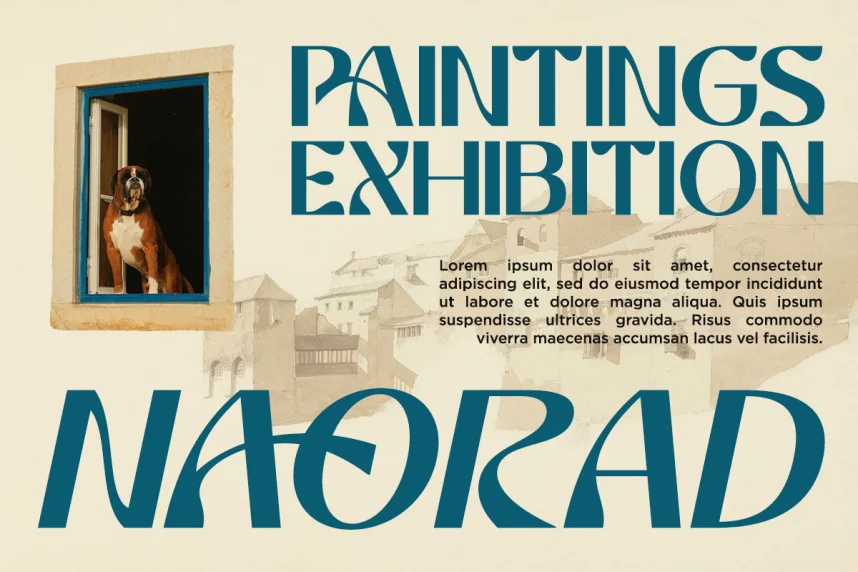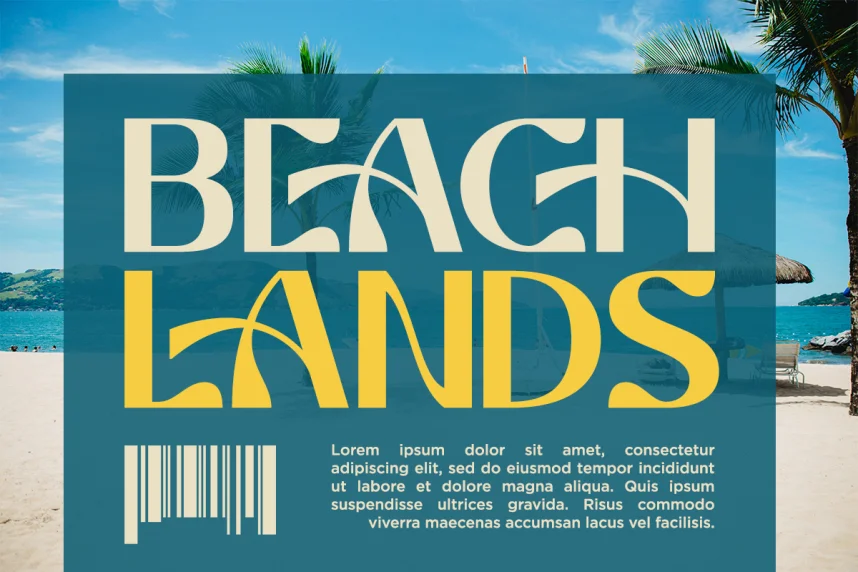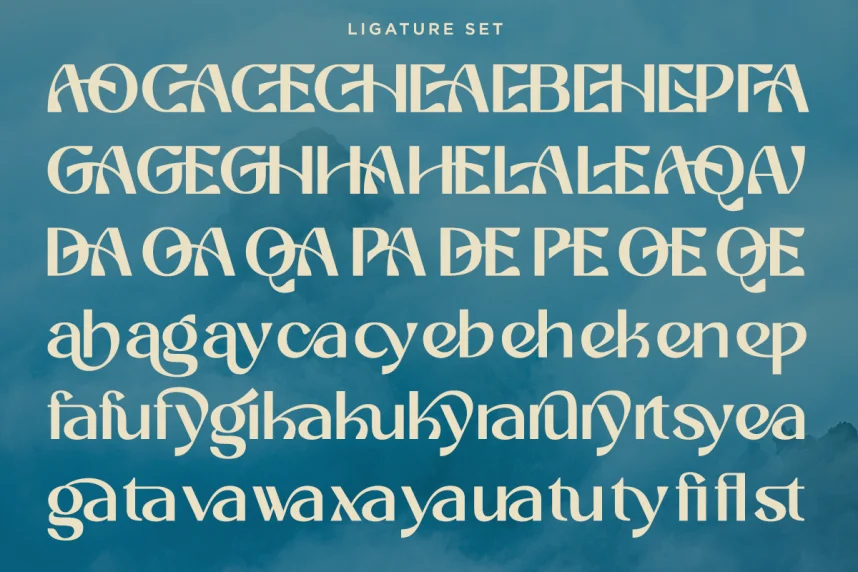
Cherlav Font is a display typeface created to address brand visibility and headline clarity in logos, posters, and digital graphics. Designers often need a bold display font that stands out at large sizes while staying consistent across branding, web design, and printed materials.
Cherlav uses strong geometric letterforms with solid strokes and controlled spacing. The characters show minimal stroke contrast, clean edges, and simplified curves, which helps maintain clarity in short text. This font focuses on visual impact rather than long reading, making it suitable for titles, signage, and logo design.